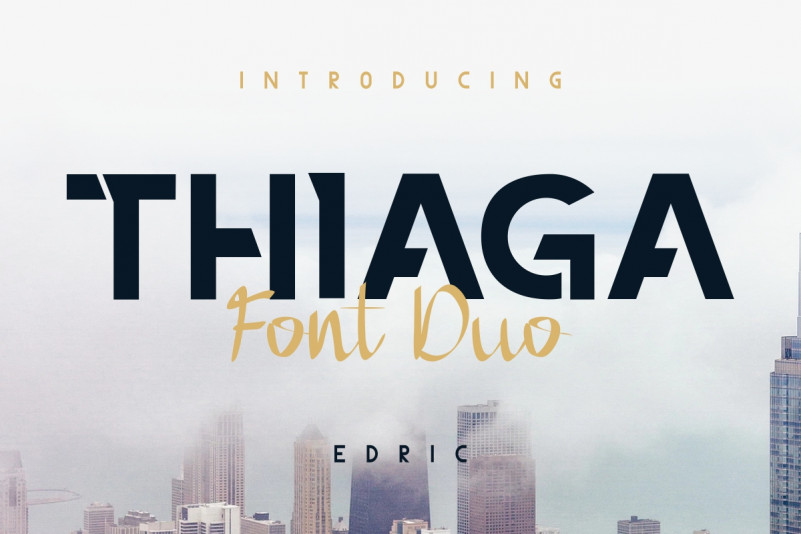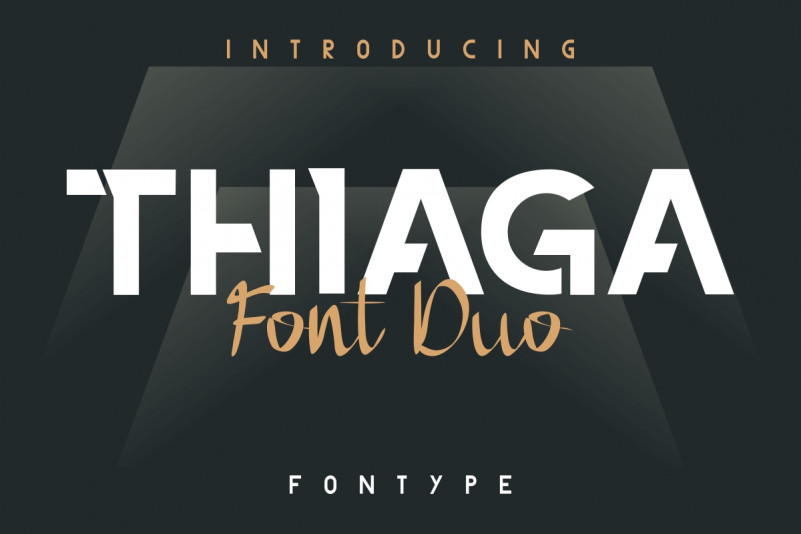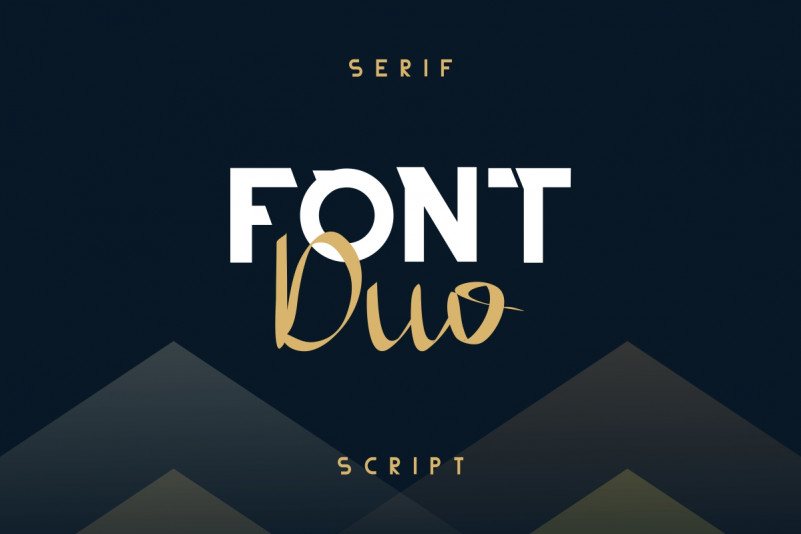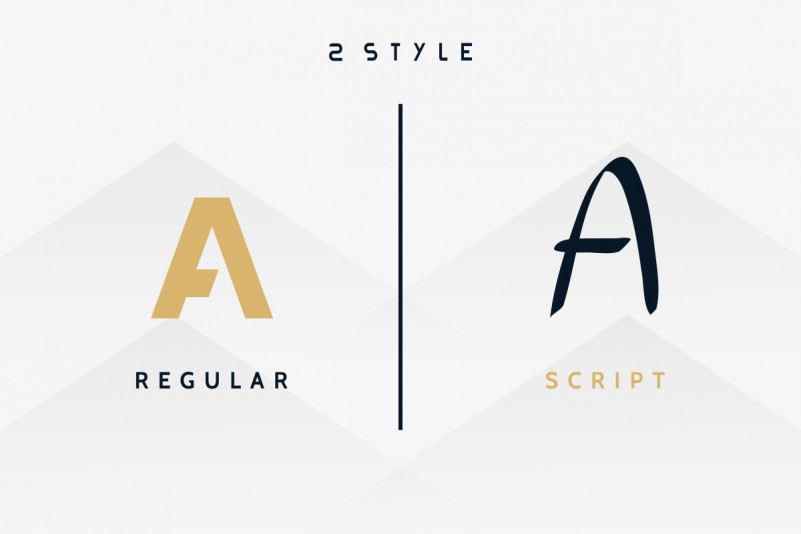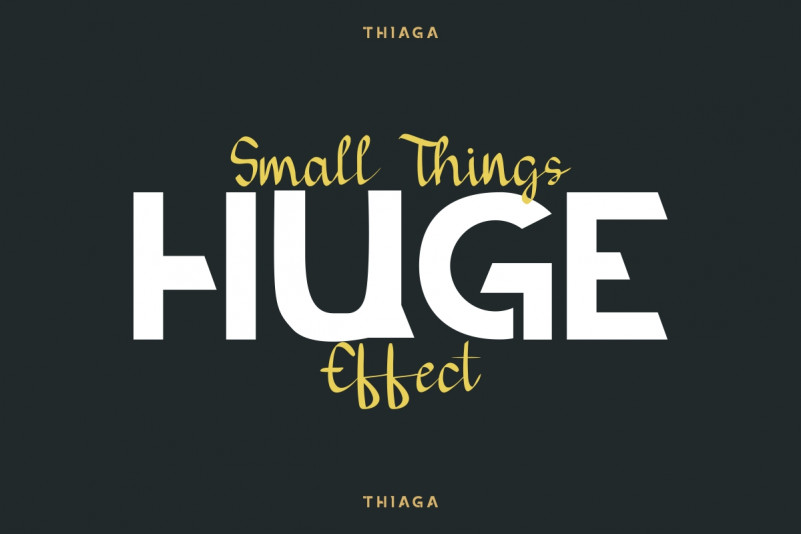
Hi Everyone! Introducing our newest font : THIAGA Font Duo! This is a new modern font DUO : Sans and Script: Modern Futuristic Sans with mono-spaced look and script hand- writing style.
The look of this font is modem futuristic but will suitable for many other concepts. This font will be great for logotype, wordmark stationery, business card, signage, flyer, brochure, website, application etc. There are many industries that is suitable for this font : technology, internet, startup, application, games, portfolio, company, construction, real estate, services, law firm etc